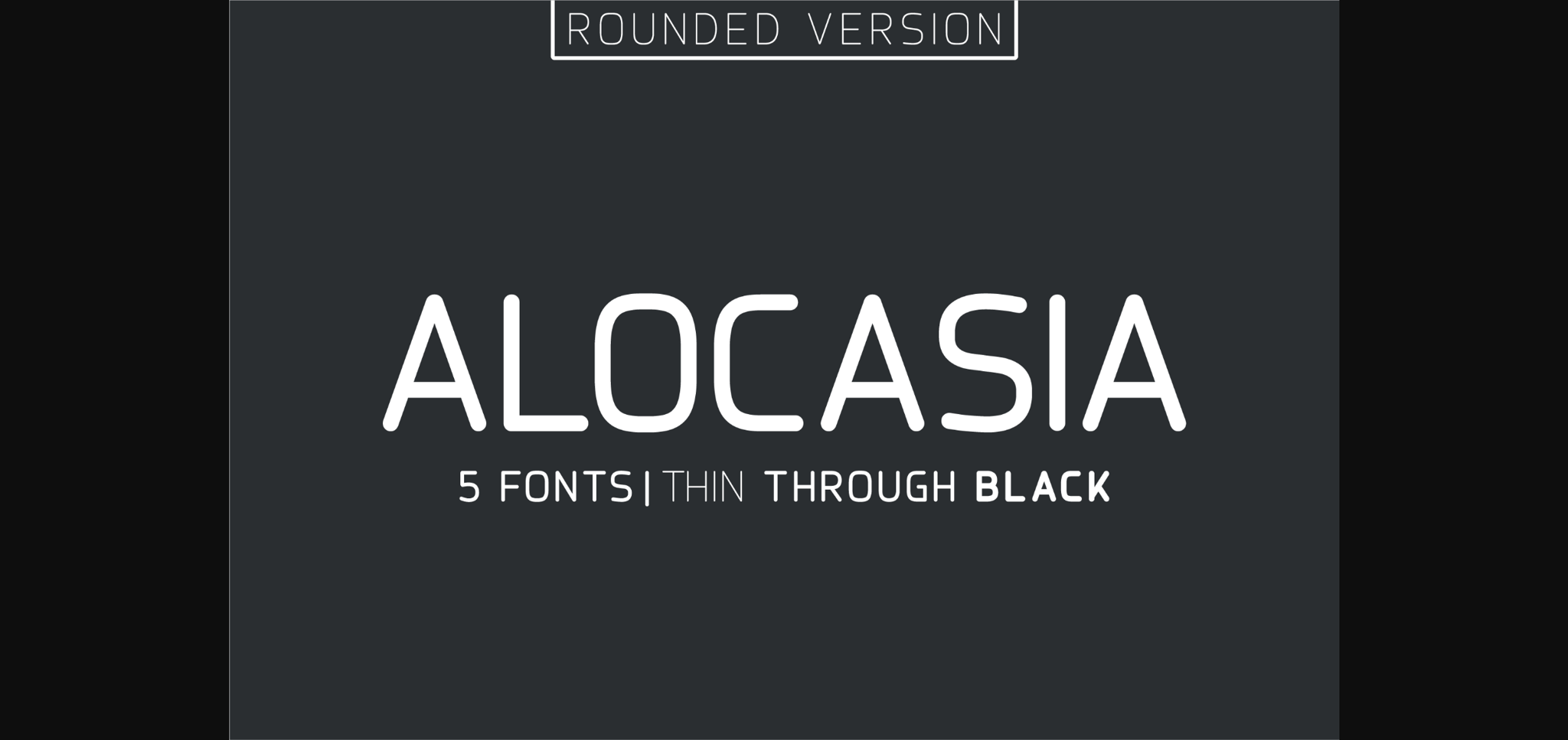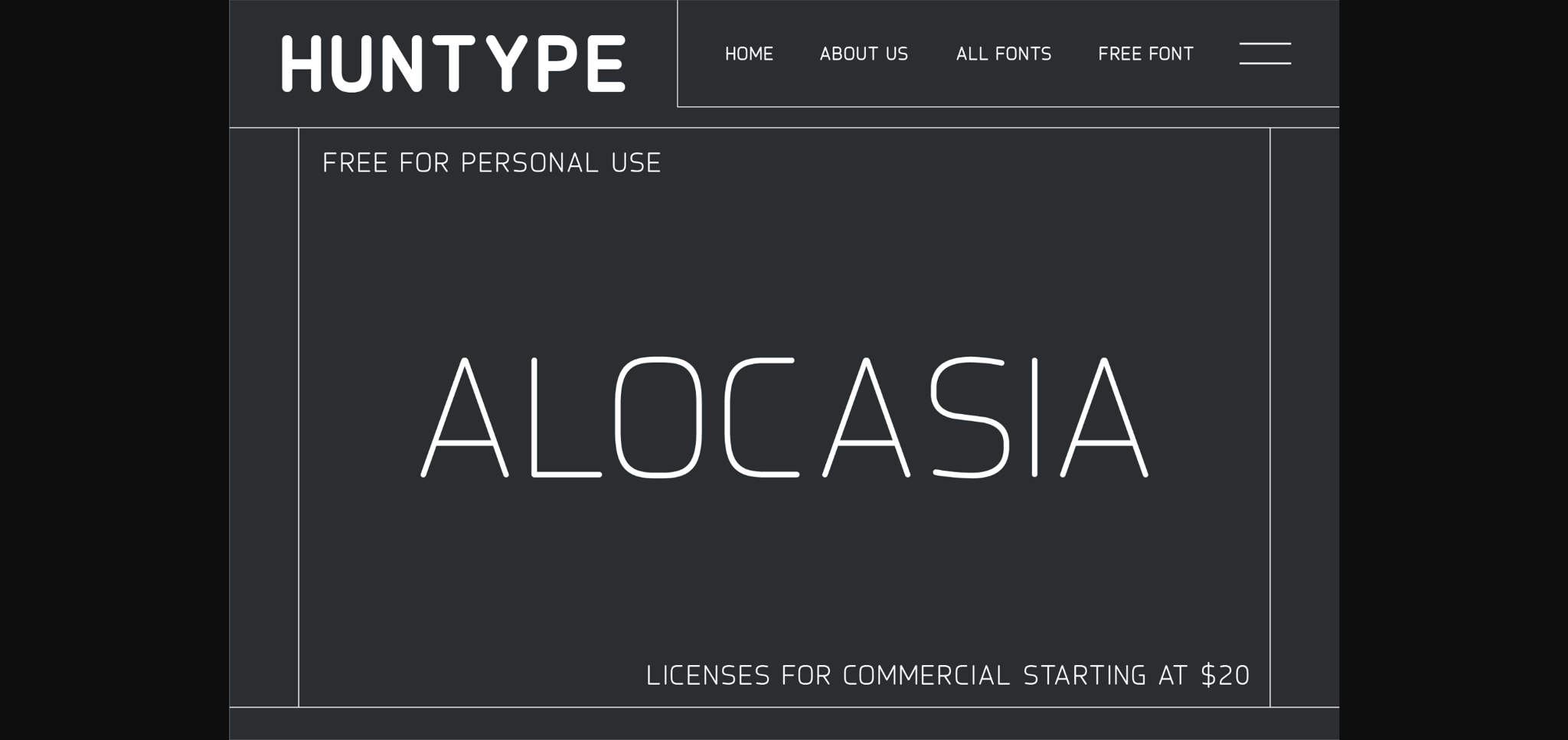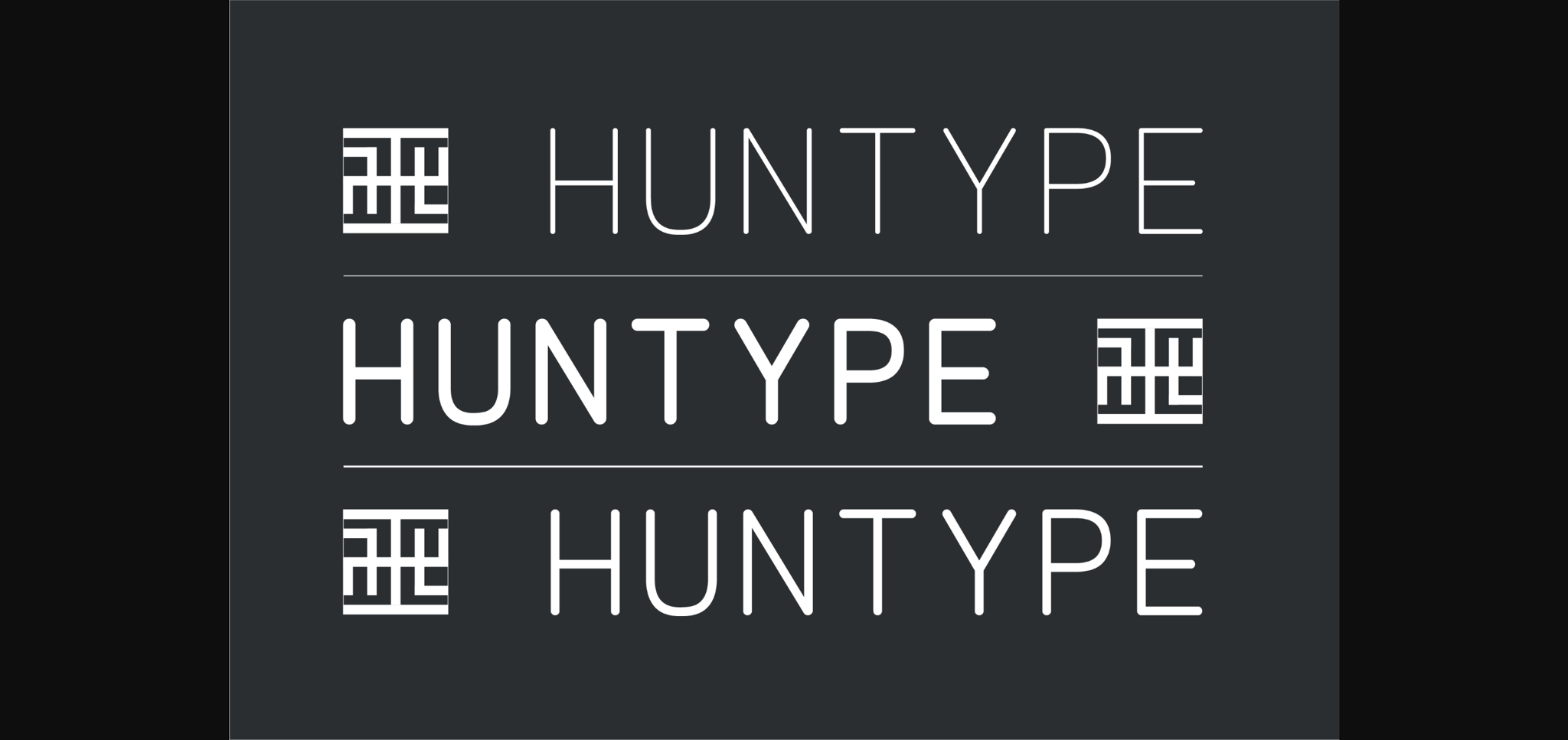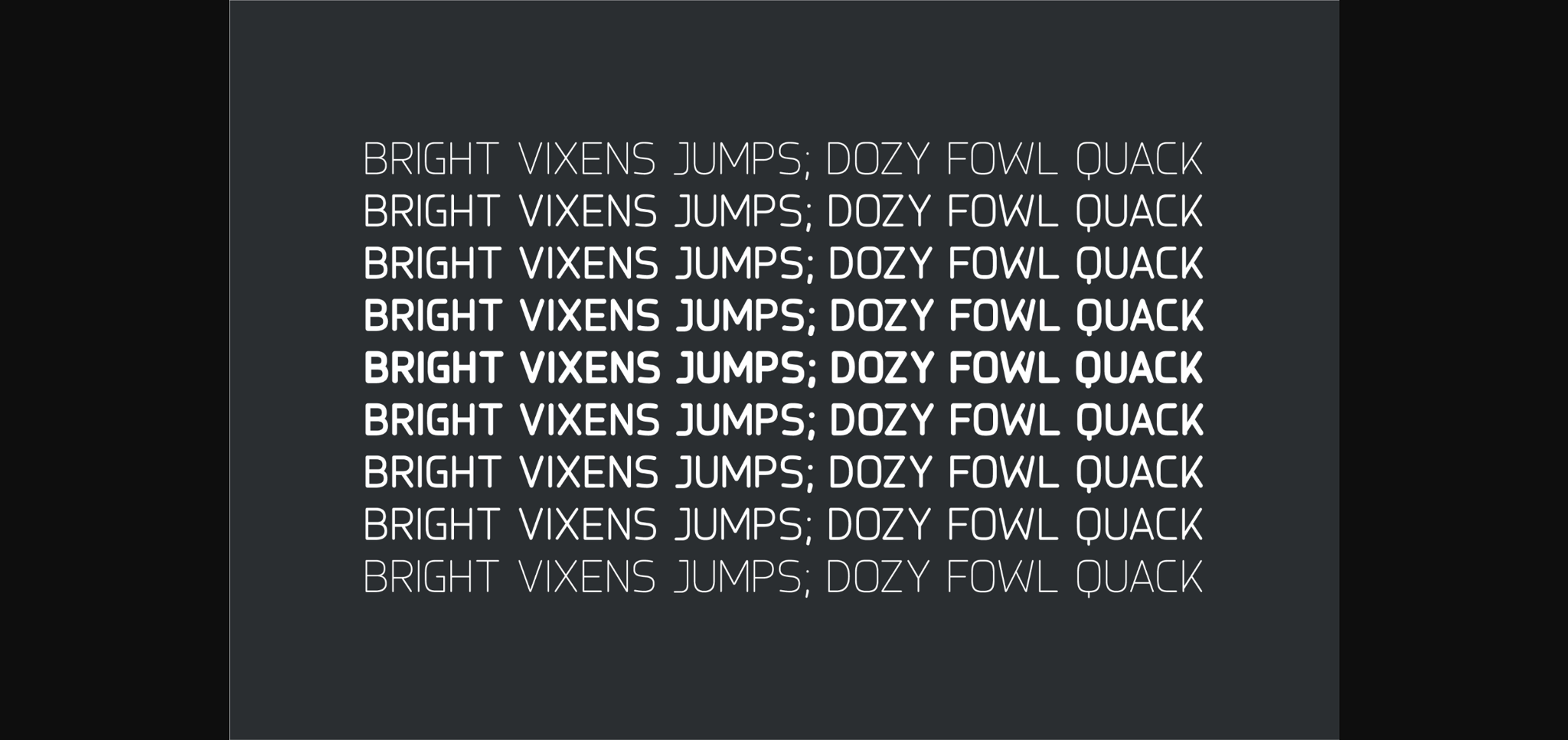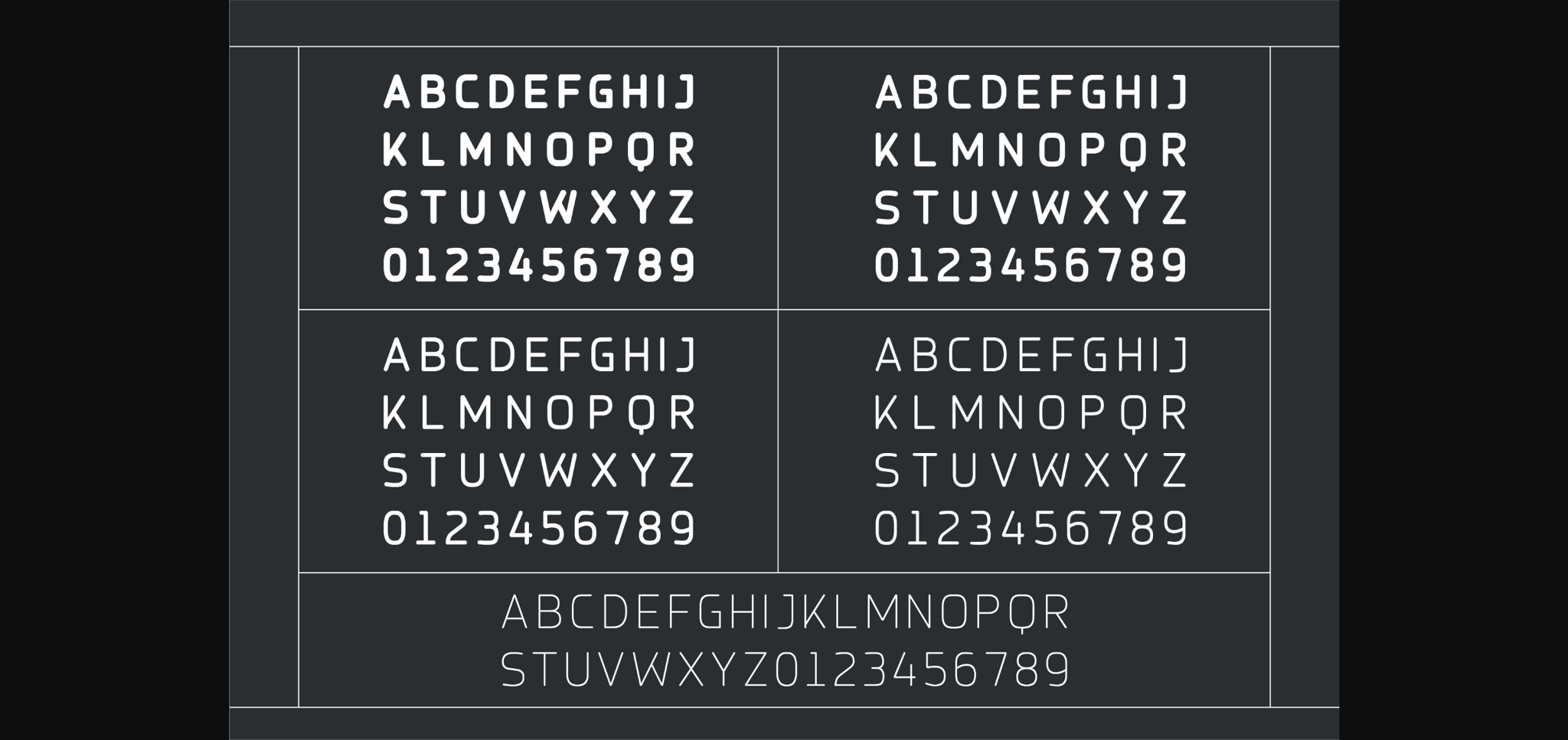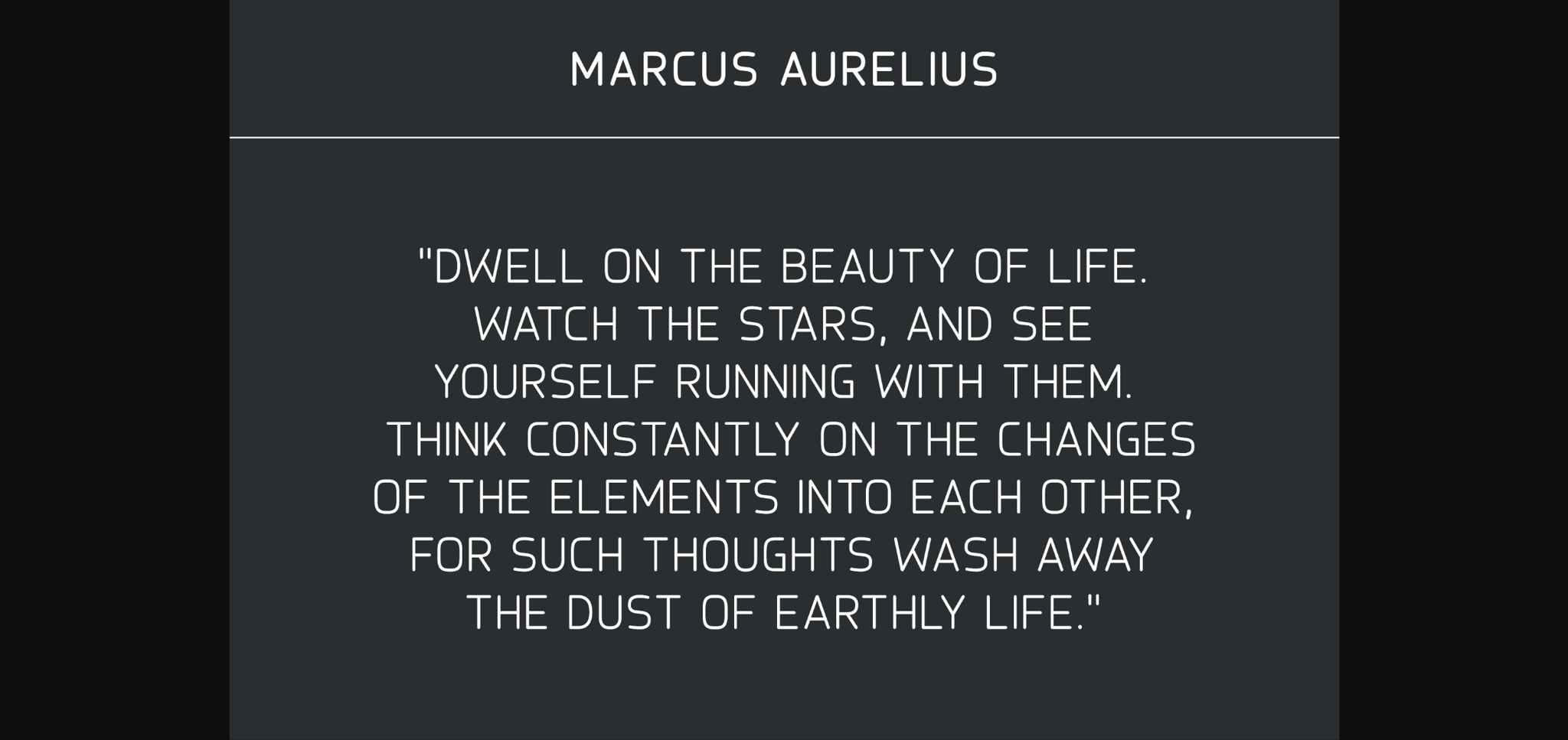
Alocasia Font
About Alocasia Font
Alocasia is a fun and quirky sans-serif font. This all-caps typeface is so versatile and looks great in just about any context. With smooth and clean lines, and just a touch of contrast, Alocasia works beautifully for logos, branding, and web headings.